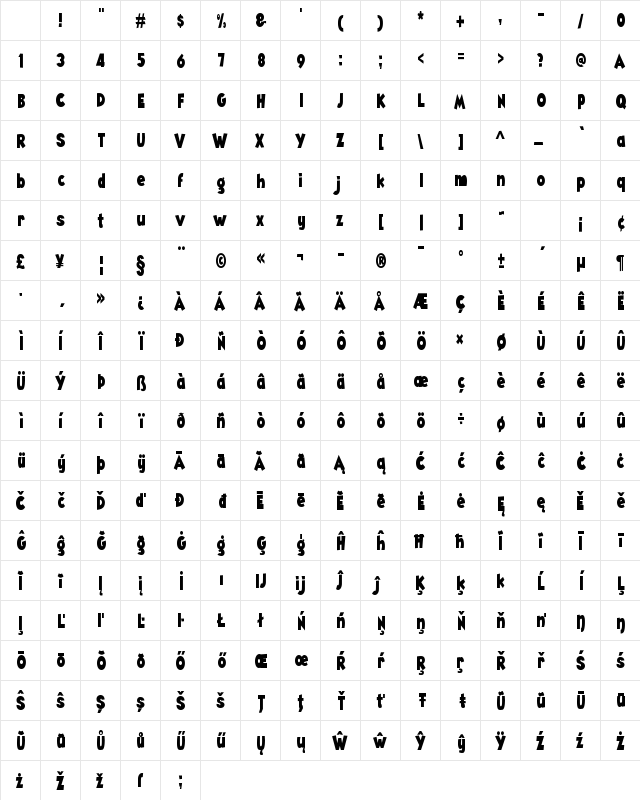
Complete Angella Narrow Regular glyph index. Displaying only characters natively supported by Angella Narrow Regular font.
Angella Narrow is a composed and adaptable typeface that performs quietly and consistently across a wide range of design contexts. Its narrow stance lets it pack a punch even in space-constrained designs.